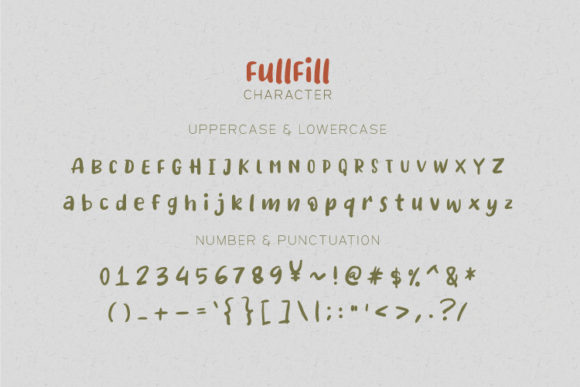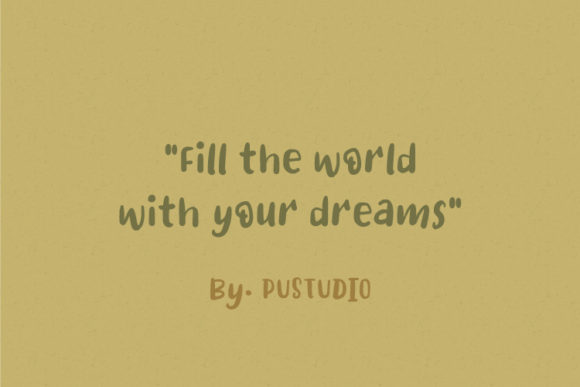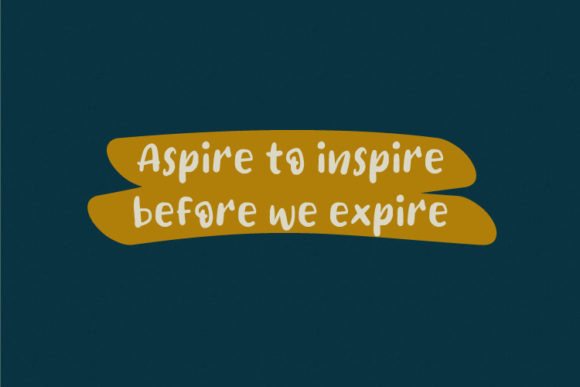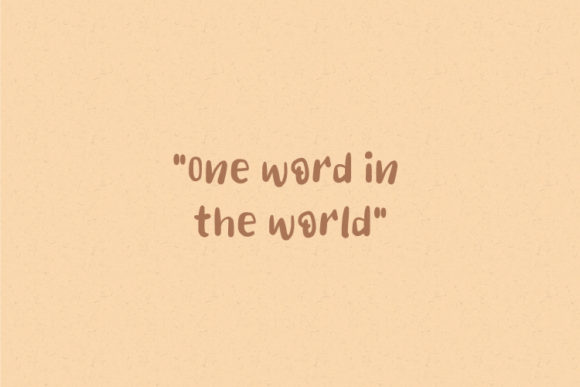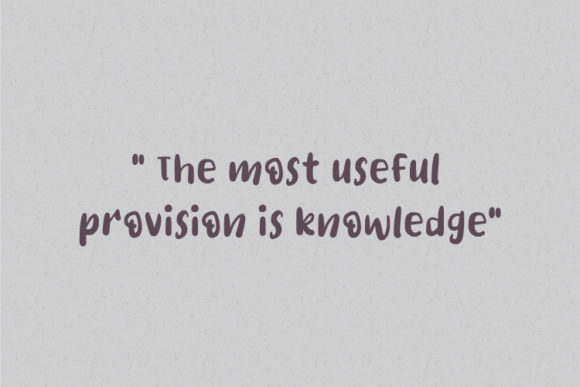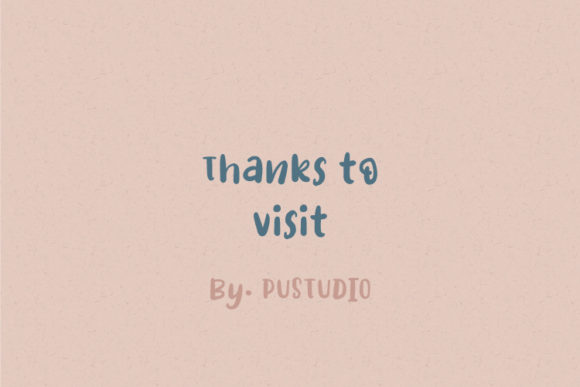
Introducing FullFill Font: The Ultimate Playful and Vintage Display Font
Are you a designer or crafter looking for a font that can add a touch of playfulness and vintage charm to your projects? Look no further than FullFill Font! This versatile and stylish display font is perfect for a wide range of applications, from poster designs and book covers to merchandise, fashion campaigns, newsletters, greeting cards, album covers, and more.
What Makes FullFill Font So Special?
FullFill Font is a unique and eye-catching font that boasts a distinctive vintage flair. Its playful and whimsical design makes it perfect for projects that require a touch of personality and charm. Whether you’re looking to create a bold and eye-catching poster or a beautiful and elegant book cover, FullFill Font is the perfect choice.
Key Features of FullFill Font
- Playful and Vintage Style: FullFill Font features a unique and stylish design that is both playful and vintage-inspired.
- Display Font: This font is specifically designed as a display font, making it perfect for headlines, titles, and other prominent text elements.
- Versatile: FullFill Font can be used for a wide range of projects, from posters and book covers to merchandise and fashion campaigns.
- Elegant and Whimsical: This font boasts an elegant and whimsical design that is sure to add a touch of personality to your projects.
FullFill Font is the perfect choice for designers and crafters who want to add a touch of playfulness and vintage charm to their projects. Whether you’re creating a bold and eye-catching poster or a beautiful and elegant book cover, this font is sure to impress. Its versatility and stylish design make it an excellent addition to any design or crafting project.
Project Ideas for FullFill Font
So, what can you create with FullFill Font? The possibilities are endless! Here are a few project ideas to get you started:
- Poster Designs: Create bold and eye-catching posters for events, promotions, or advertising campaigns.
- Book Covers: Add a touch of elegance and sophistication to your book covers with FullFill Font.
- Merchandise: Create stylish and eye-catching merchandise, such as t-shirts, mugs, and tote bags.
- Fashion Campaigns: Use FullFill Font to create stunning and stylish fashion campaigns.
- Newsletters: Add a touch of personality and charm to your newsletters with FullFill Font.
- Greeting Cards: Create beautiful and elegant greeting cards for special occasions.
- Album Covers: Add a touch of playfulness and vintage charm to your album covers.
Why Choose FullFill Font?
So, why should you choose FullFill Font for your next project? Here are just a few reasons:
- Unique and Eye-Catching Design: FullFill Font boasts a unique and eye-catching design that is sure to grab attention.
- Versatile: This font can be used for a wide range of projects, making it an excellent addition to any design or crafting project.
- Playful and Vintage Style: FullFill Font features a playful and vintage-inspired design that is perfect for projects that require a touch of personality and charm.
- Elegant and Whimsical: This font boasts an elegant and whimsical design that is sure to add a touch of sophistication to your projects.
In conclusion, FullFill Font is a versatile and stylish display font that is perfect for designers and crafters who want to add a touch of playfulness and vintage charm to their projects. With its unique and eye-catching design, elegant and whimsical style, and versatility, FullFill Font is an excellent choice for a wide range of applications.